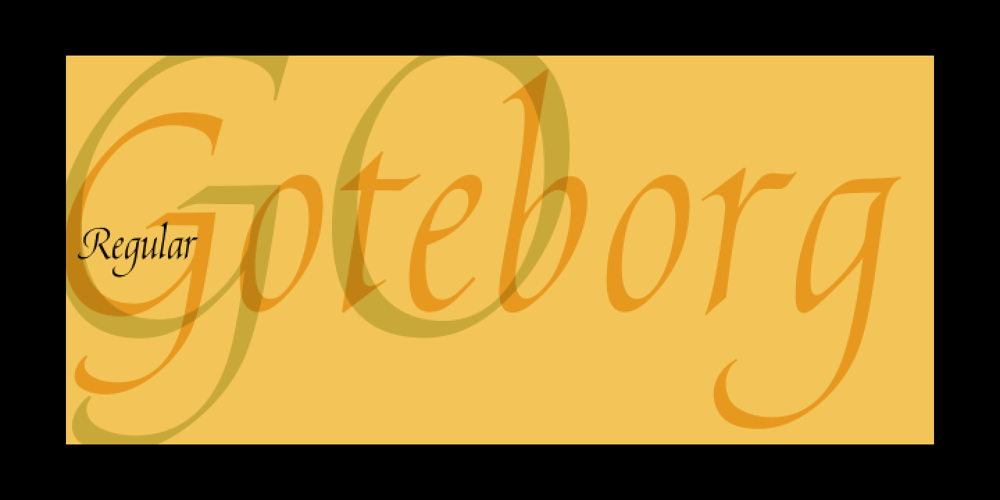
Goteborg LP Font Family was designed by Garrett Boge, Paul Shaw and published by LetterPerfect. Goteborg LP contains 1 styles and family package options. Goteborg is a an original italic typeface designed by Paul Shaw in collaboration with Garrett Boge in 1998. Its graceful yet sturdy character shapes were inspired by twentieth century Swedish lettering. The face is appropriate for both text and display settings. Goteborg is part of the LetterPerfect Swedish Set